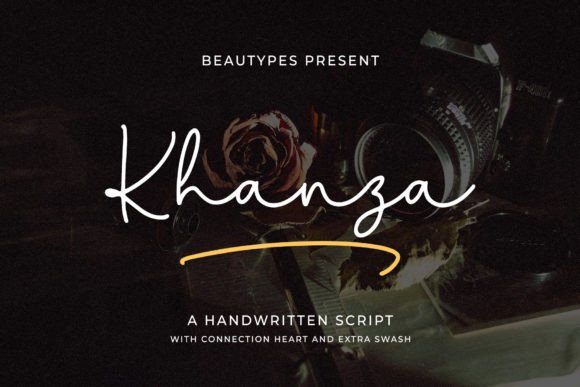
Looking for the best font for modern apps? Look no further than Khanza Font! This stunning script font is the perfect choice for any project that needs a touch of elegance and sophistication.
Created by Beautypes, Khanza is a modern handwritten font that combines a classic script style with a contemporary edge. Its elegant curves and flowing lines make it the perfect choice for wedding invitations, business cards, quotes, thank you cards, greeting cards, branding, logos, magazines, marketing materials, and more.
Whether you're designing an app, a website, or a marketing campaign, Khanza Font will elevate your project to the next level. Its unique combination of classic and modern styles makes it incredibly versatile, allowing you to create stunning designs that are both timeless and on-trend.
But Khanza Font isn't just a pretty face - it's also incredibly easy to use. Its simple yet elegant design makes it a breeze to incorporate into any project, while its wide range of weights and styles ensures that you can always find the perfect match for your needs.